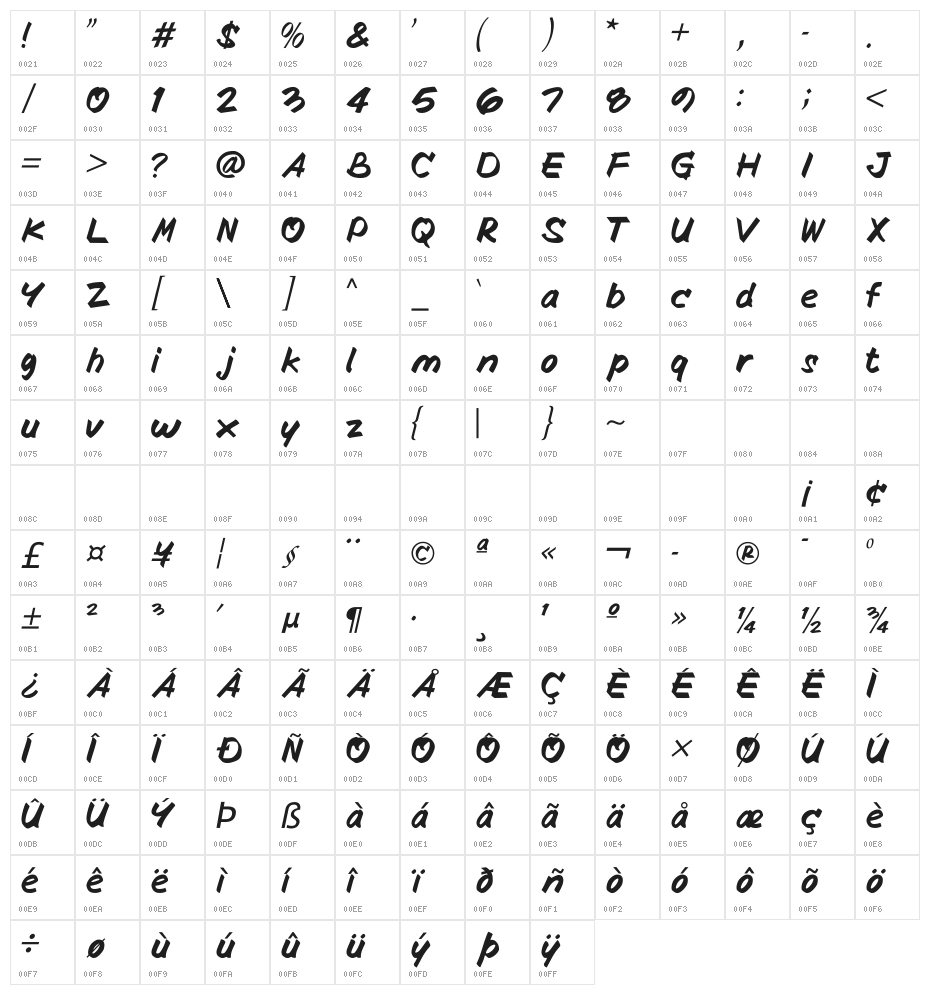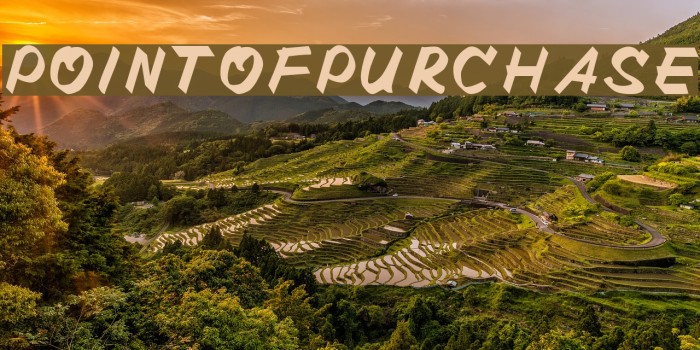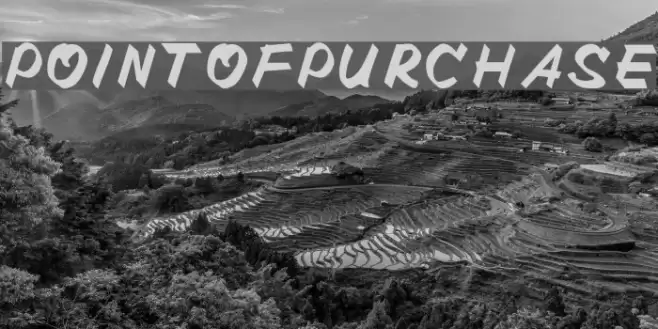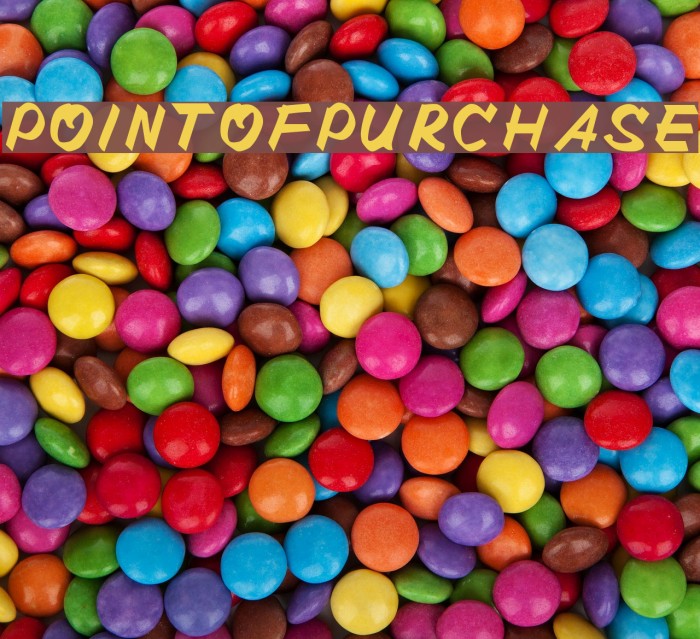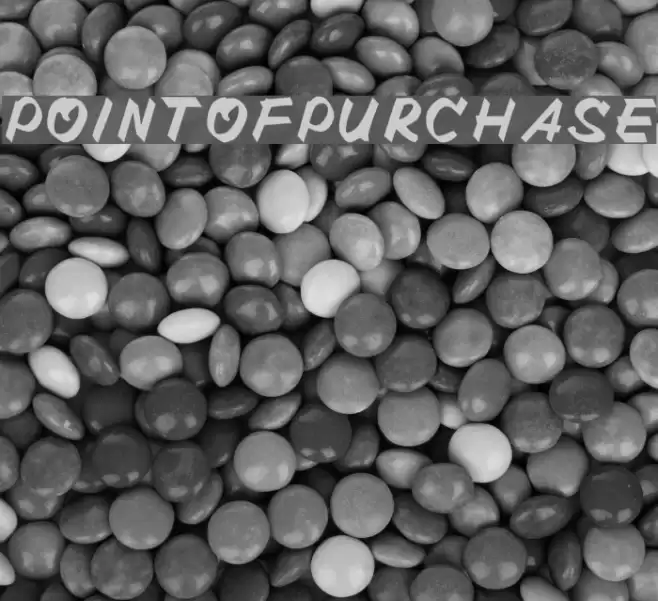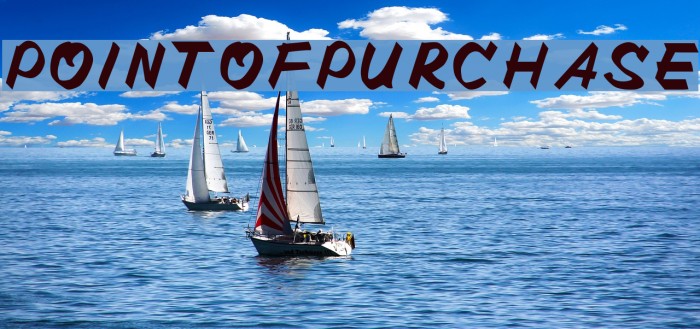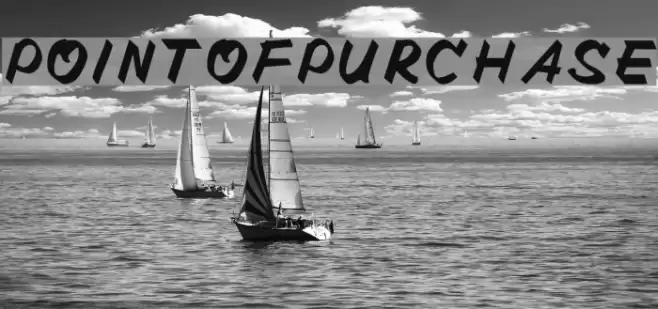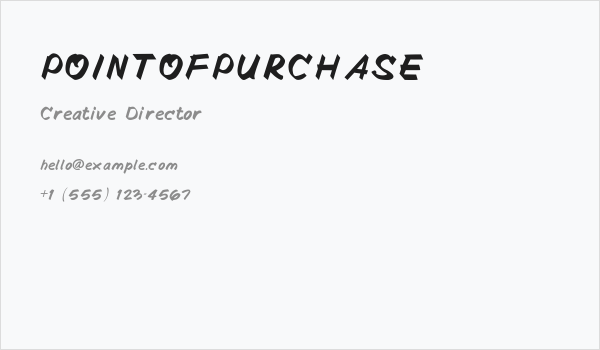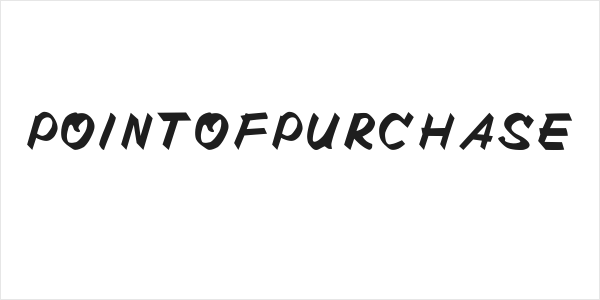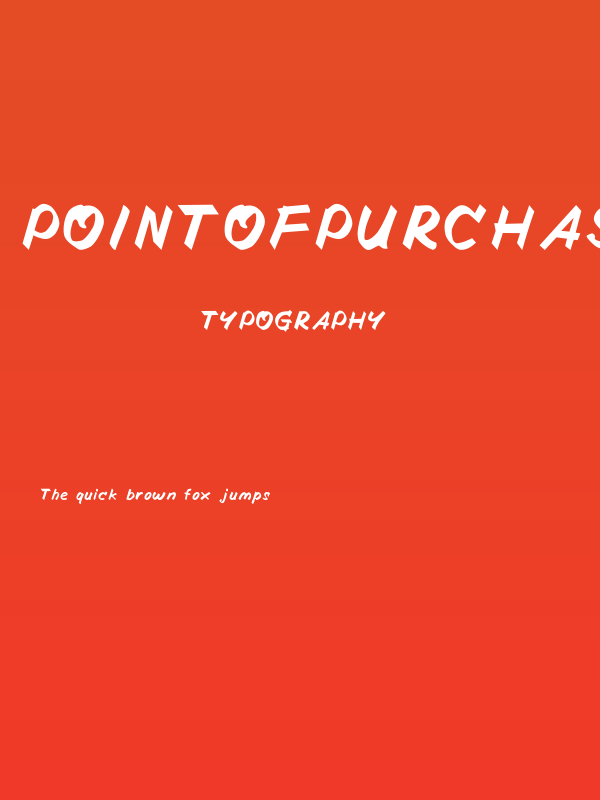
POINTOFPURCHASE Font
POINTOFPURCHASE Description
This font features a bold and dynamic style with a handwritten appearance. The uppercase letters are angular and slightly slanted, giving a sense of movement and energy. The lowercase letters maintain a consistent flow, with rounded edges that contrast with the sharpness of the uppercase. Numbers are bold and clear, matching the overall style of the alphabet. Special characters are well-integrated, maintaining the font's energetic and playful vibe. The font's unique style makes it suitable for projects that require a personal touch or a sense of spontaneity.
| Proposed Projects | Ideal for branding, packaging, posters, and any design needing a personal, lively touch. |